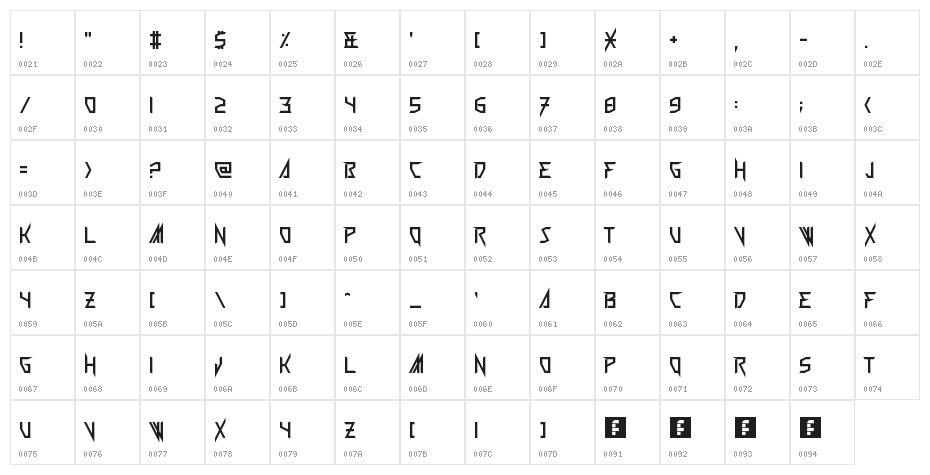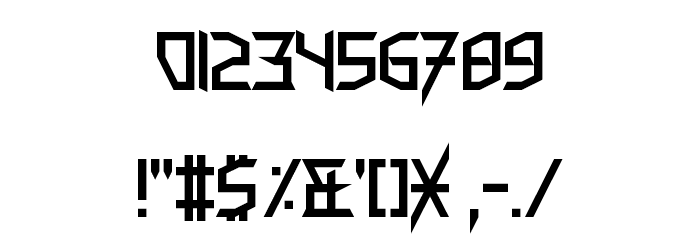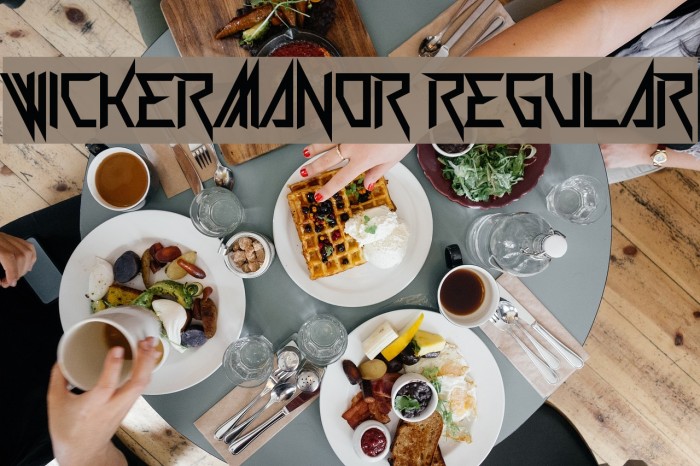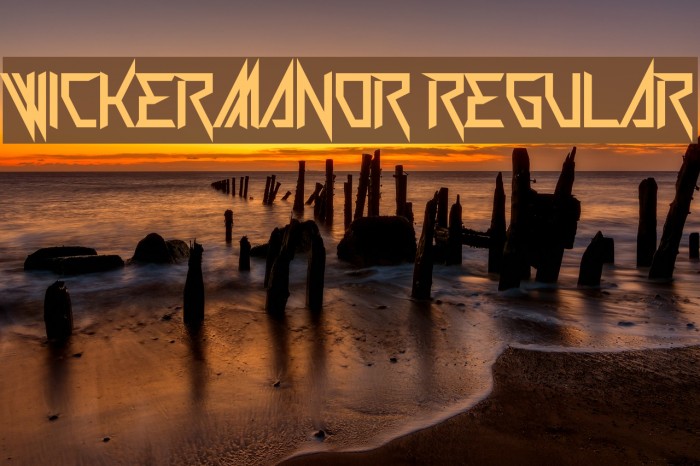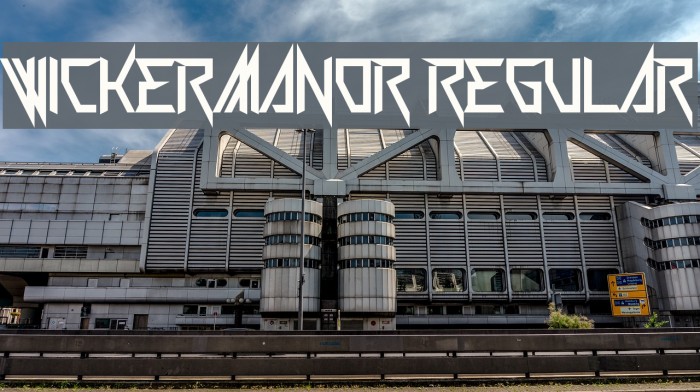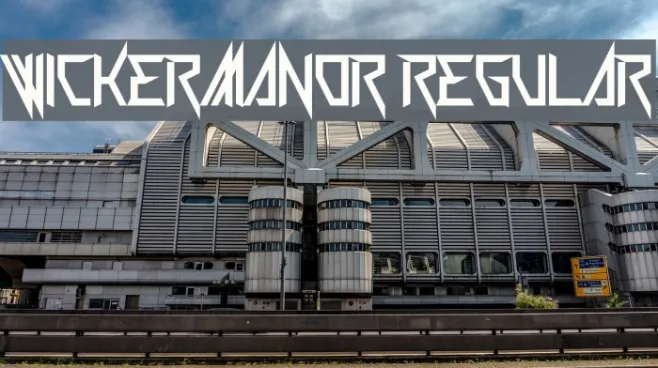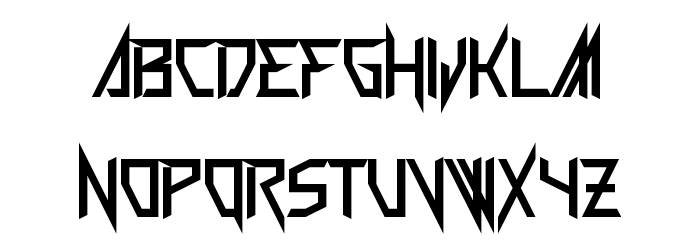
Wickermanor Regular Font
Wickermanor Regular Description
This font features a bold, angular design with sharp edges and a geometric structure. Its characters are crafted with a futuristic and edgy aesthetic, making it stand out with a unique and striking appearance. The uppercase and lowercase letters maintain a consistent style, with each character exhibiting a dynamic and aggressive form. The numbers and special characters follow the same design principles, ensuring uniformity across the font. The overall look is modern and avant-garde, suitable for projects that require a bold statement.
| Proposed Projects | Ideal for sci-fi themed projects, video game titles, posters, and branding that requires a modern and bold aesthetic. |